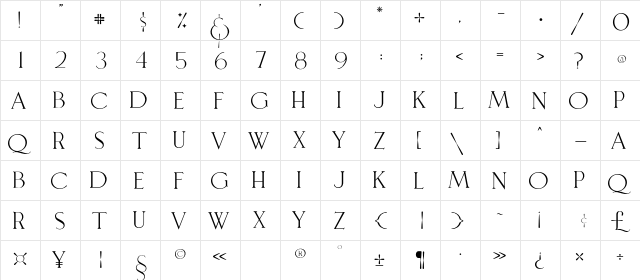
Leonetta Serif
| Style | Serif |
| Foundry | Angin studio |
| Designer | Ahmad Aswin & David Novrian |
Design Context for Leonetta Typeface
Leonetta brings classic typographic sensibility to the table — its serifs and measured letterforms reflect centuries of print heritage.
Pro Tip: Use Leonetta for editorial body copy and considered headline work. Pair with a neutral sans for UI elements or captions to create a classic hierarchy.